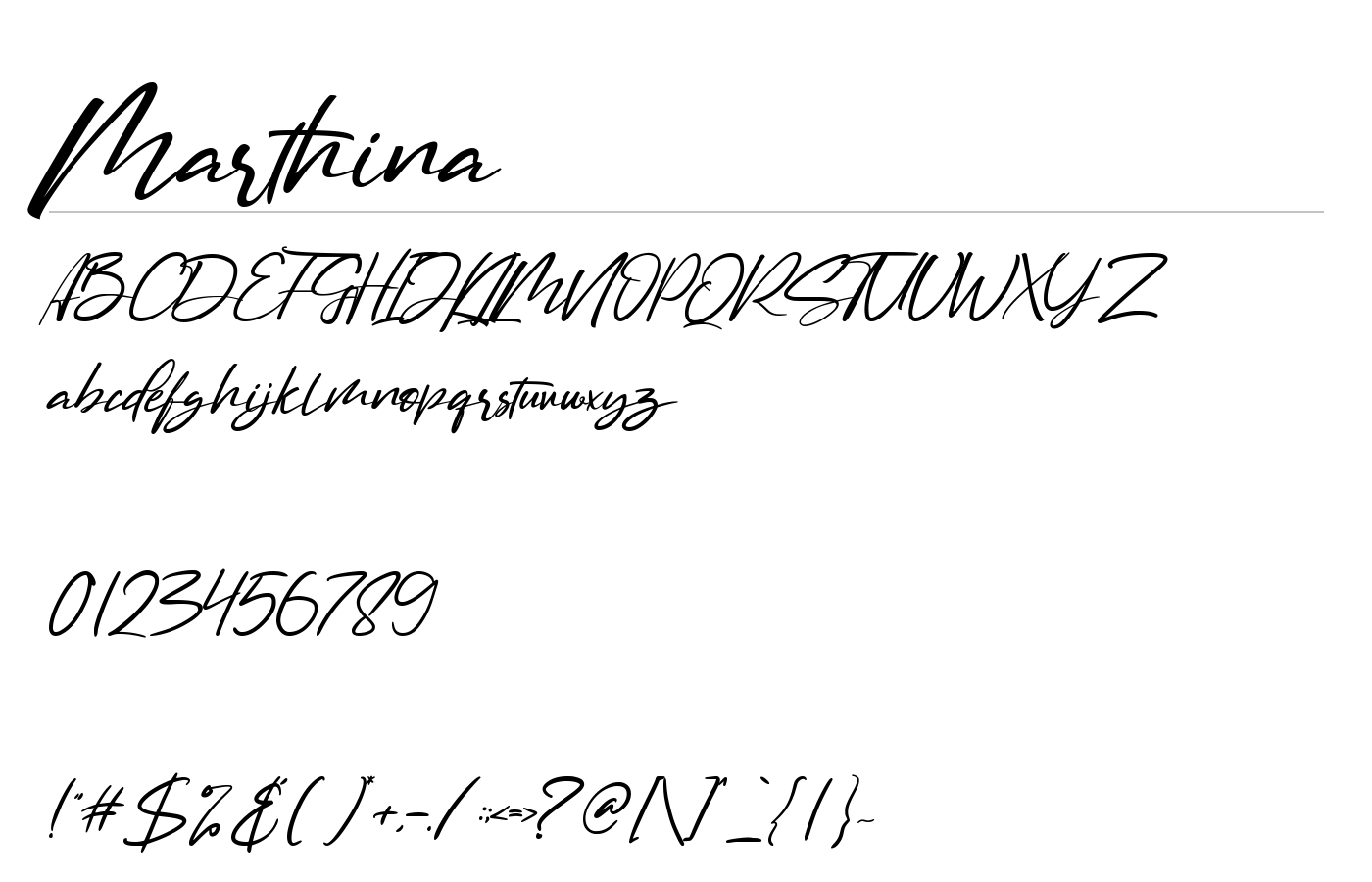
Martina is a stylish script font with a slender, handwritten look that feels both elegant and casual. Its flowing letterforms with varied stroke thicknesses and smooth curves make it perfect for adding a personal, artistic touch to branding, invitations, and creative projects. This font works especially well in logos, headlines, and packaging where a sophisticated yet approachable vibe is desired.
Martina Font
About Martina Font
| Font family | Martina Font |
| Designer | Stringlabs. 2020 |